A small shop’s font choices have to do double duty — a logo/banner that looks handmade and personal, and product mockups (mugs, shirts, stickers) that still read clearly at a small size. These ten were picked for shops that want to look considered without a full brand designer on staff. If you’ve been searching for free fonts for etsy shop, these picks are curated with exactly that in mind.
| Quicksand | Rounded geometric sans | Cute, minimal shop branding |
| Prata | Elegant display serif | Boutique and luxury-feeling shop branding |
| Poiret One | Thin Art Deco display | Elegant jewelry and fashion shop branding |
| Marck Script | Flowing signature script | Handmade and artisan branding |
| Abril Fatface | Ultra-bold display serif | Bold statement shop logos |
| Comfortaa | Rounded geometric sans | Friendly craft-shop branding |
| Cormorant Garamond | Delicate high-contrast serif | Vintage, cottagecore shop branding |
| Bebas Neue | Condensed all-caps display | Modern, minimalist shop text |
| Amatic SC | Hand-drawn condensed display | Rustic, farmhouse-style shop branding |
| Satisfy | Casual brush script | Whimsical handmade branding |
Quicksand
A rounded geometric sans with a soft, friendly feel, Quicksand suits a shop that wants to look clean and approachable without leaning into an overtly “crafty” aesthetic.
Prata
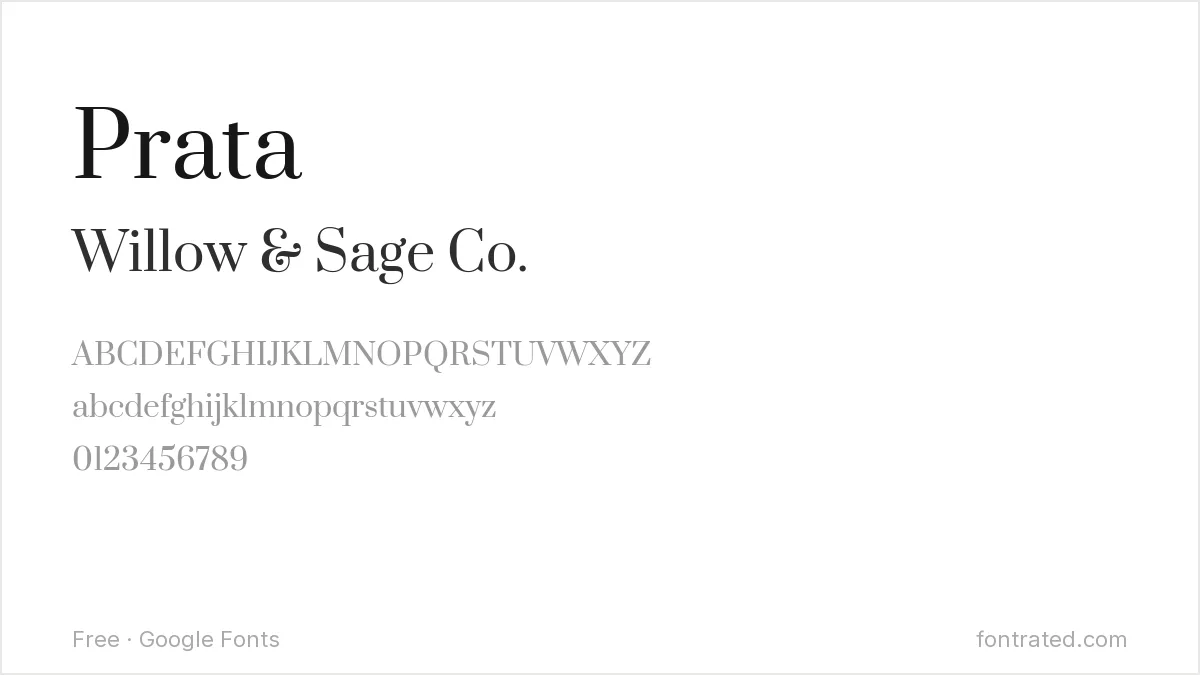
A refined, high-contrast display serif, Prata gives a small shop’s branding a boutique, slightly upscale feel — useful for jewelry, home goods, or anything positioned above budget pricing.
Poiret One
An extremely thin, elegant Art Deco display font, Poiret One suits a jewelry or fashion-adjacent shop that wants a logo to feel delicate and refined.
Marck Script
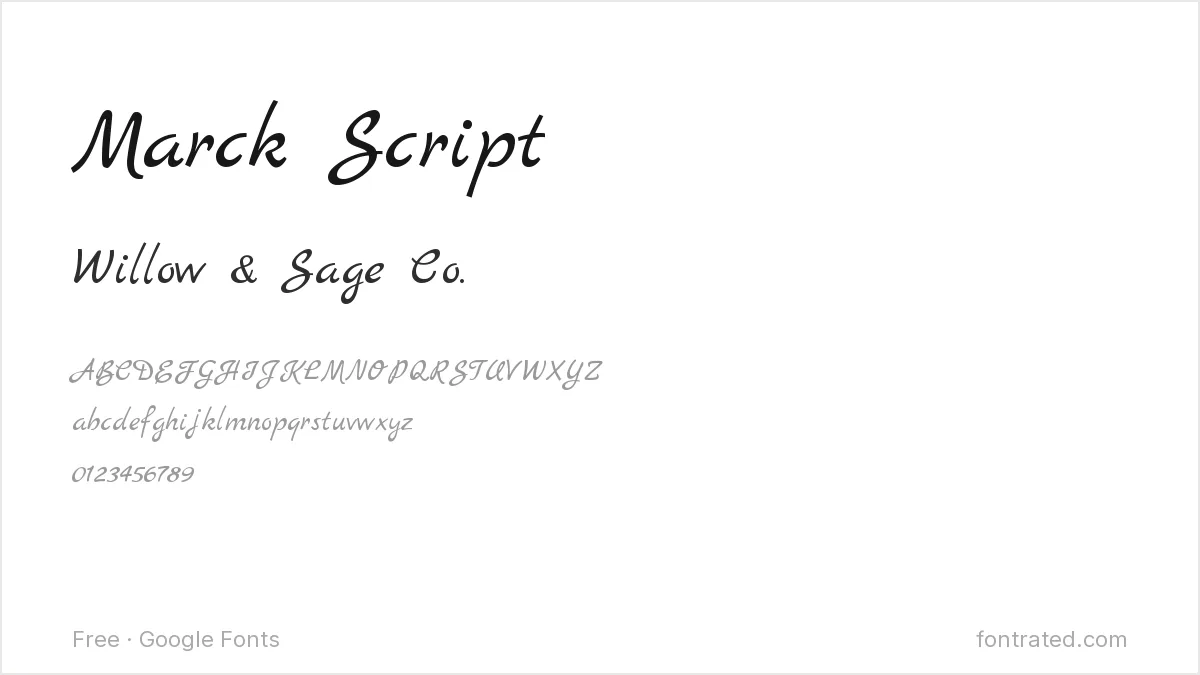
A flowing script with a genuine signature-like quality, Marck Script suits a shop that wants its branding to feel personally signed, like a real maker stands behind each product.
Abril Fatface
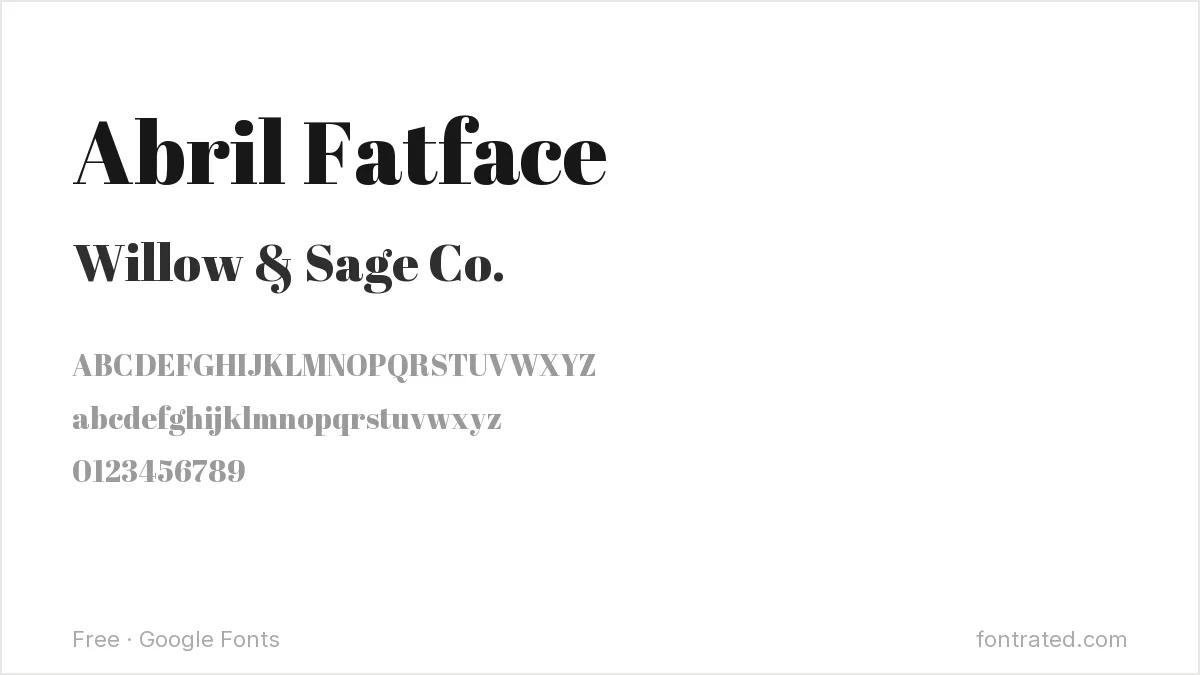
An ultra-bold display serif with extreme stroke contrast, Abril Fatface works well for a shop banner that wants to make a confident, unmissable first impression.
Comfortaa
Rounded and geometric with a soft, bubble-like feel, Comfortaa suits a craft or handmade-goods shop that wants to look friendly and modern at once.
Cormorant Garamond
A delicate serif based on old-style Garamond proportions, Cormorant Garamond suits a shop leaning into a vintage or cottagecore aesthetic — dried flowers, vintage-inspired goods, that kind of feel.
Bebas Neue
A tall, condensed, all-caps font, Bebas Neue works well for a shop name that wants to read as modern and minimal rather than handmade or crafty.
Amatic SC
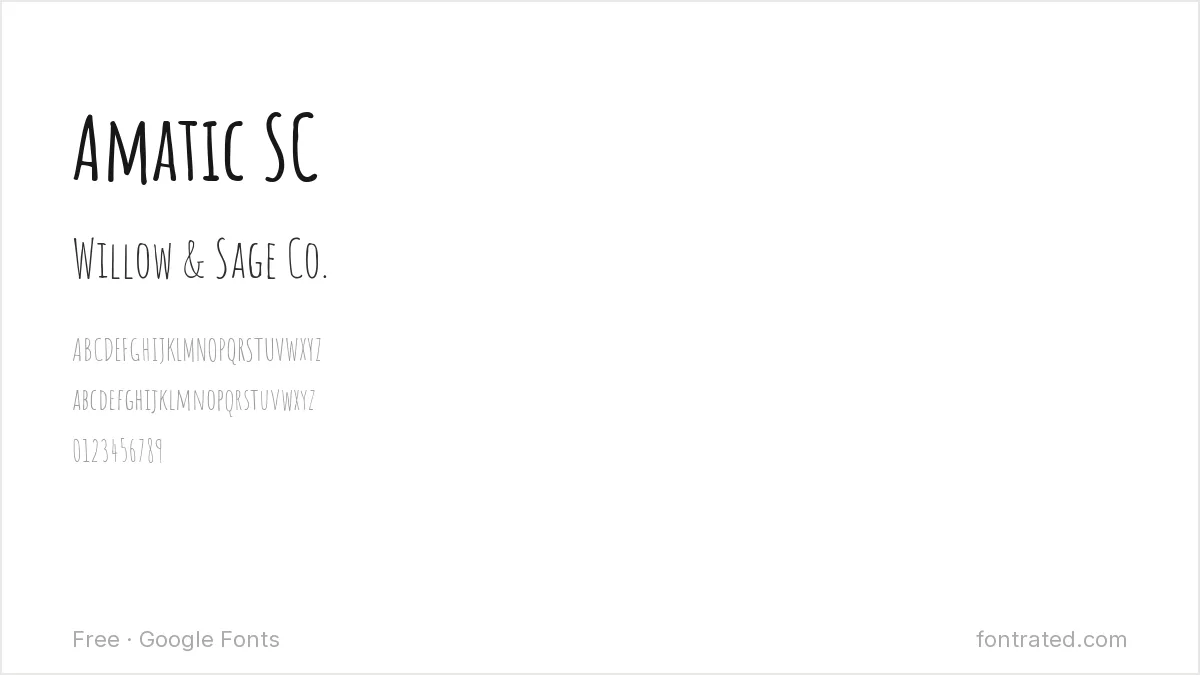
A tall, condensed, hand-drawn style font, Amatic SC suits a rustic or farmhouse-aesthetic shop that wants branding to feel a little imperfect and DIY.
Satisfy
A casual, slightly rough brush script, Satisfy gives a shop’s branding a whimsical, handmade quality without the more formal polish of a calligraphy script.
Which one should you actually pick? Match the font to your product’s actual aesthetic before your personal taste — Prata or Poiret One if you’re selling something upscale, Amatic SC or Satisfy if your products lean rustic and handmade. Test the font on an actual product mockup (a mug, a sticker) before committing, since legibility shrinks fast on small merchandise.
Are these fonts free to use for my Etsy shop branding and product designs?
Yes. All ten are Google Fonts under the SIL Open Font License, which permits commercial use — including shop branding, logos, and products you sell — with no royalties or attribution required.
Will a delicate font like Poiret One still be legible on a small product like a sticker?
Test it at the actual product size first — very thin, high-contrast fonts can lose definition when printed small. For anything below about 2 inches, a sturdier font (Quicksand, Comfortaa, Bebas Neue) is generally safer than a delicate display serif.